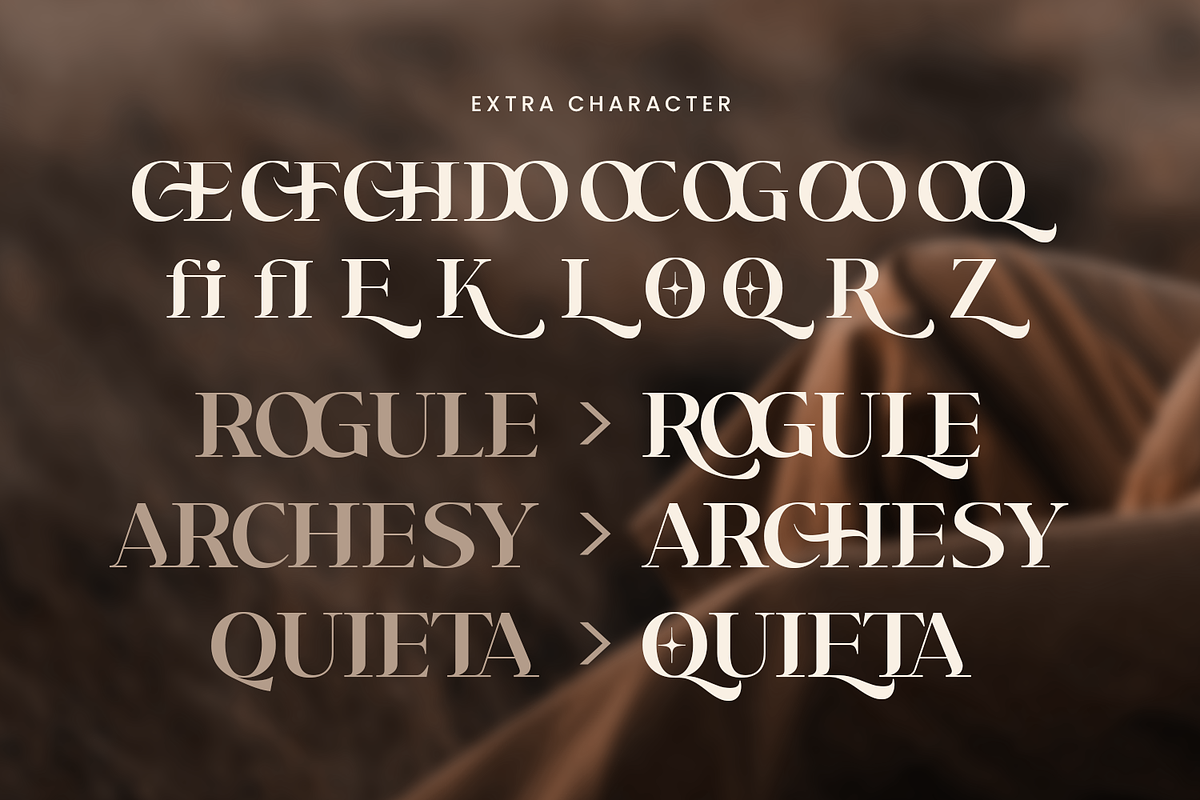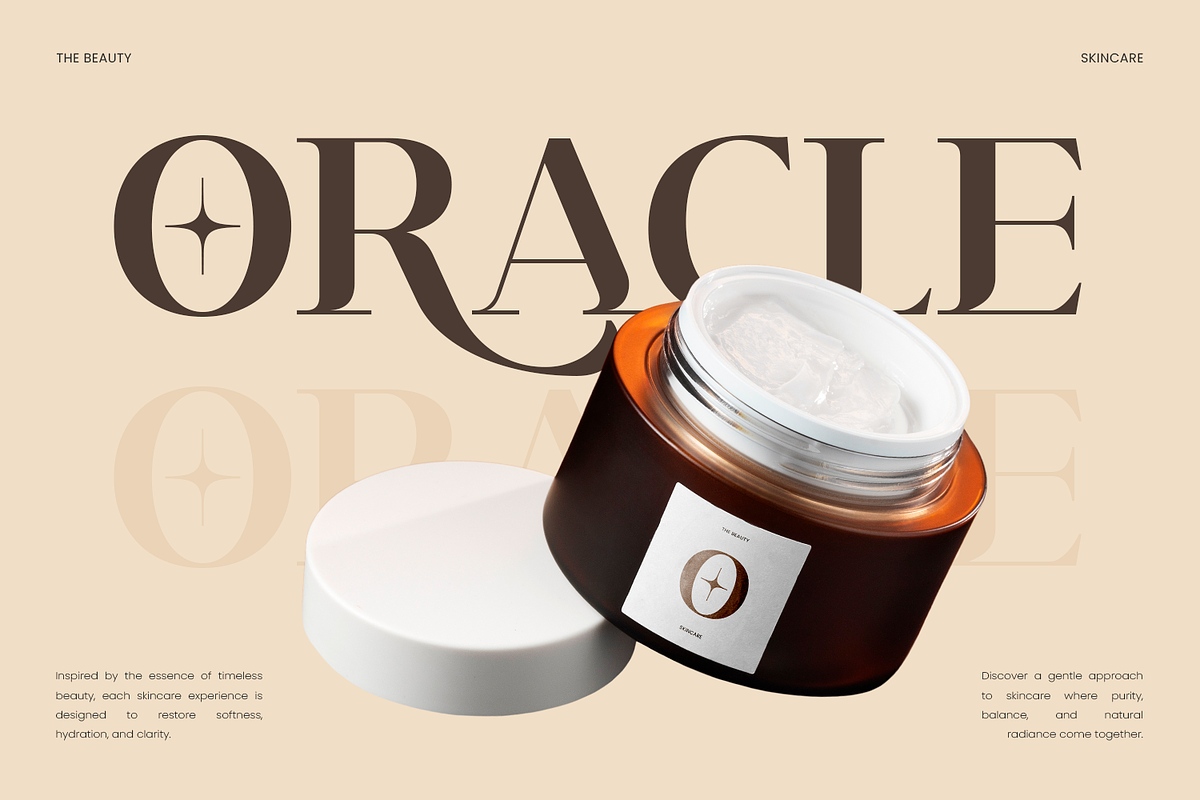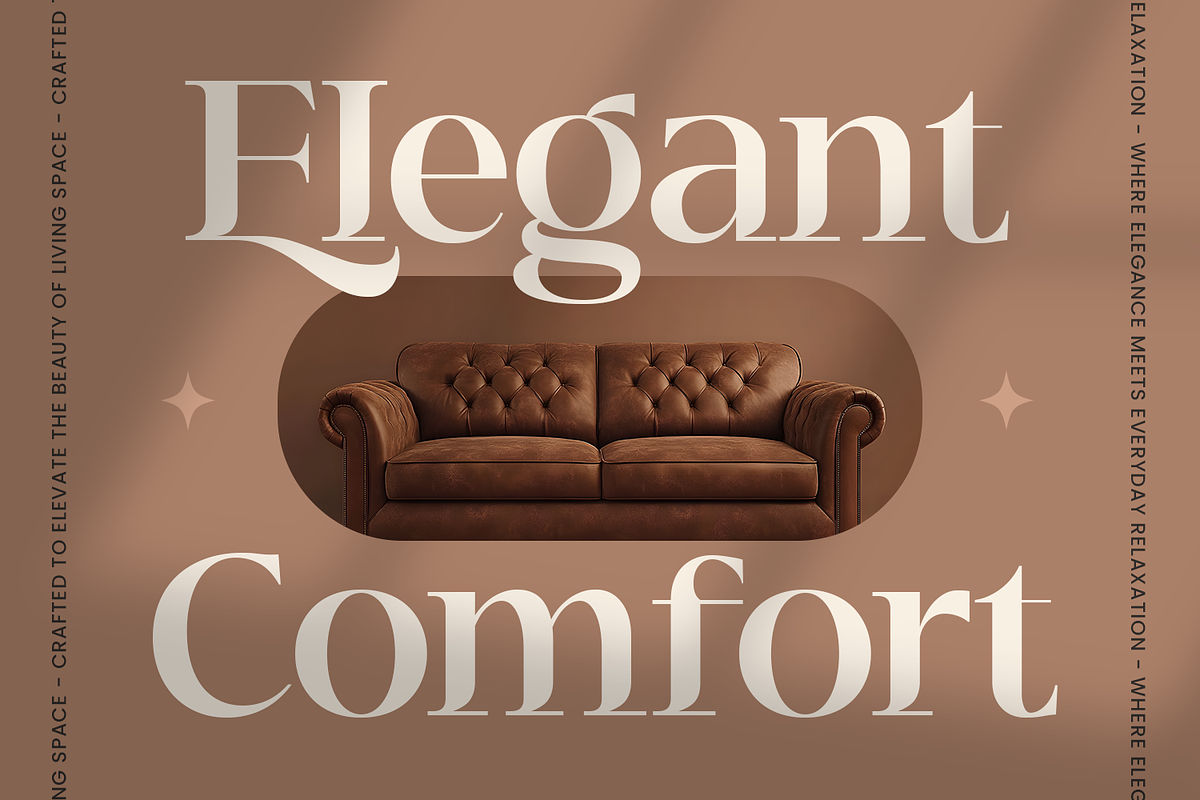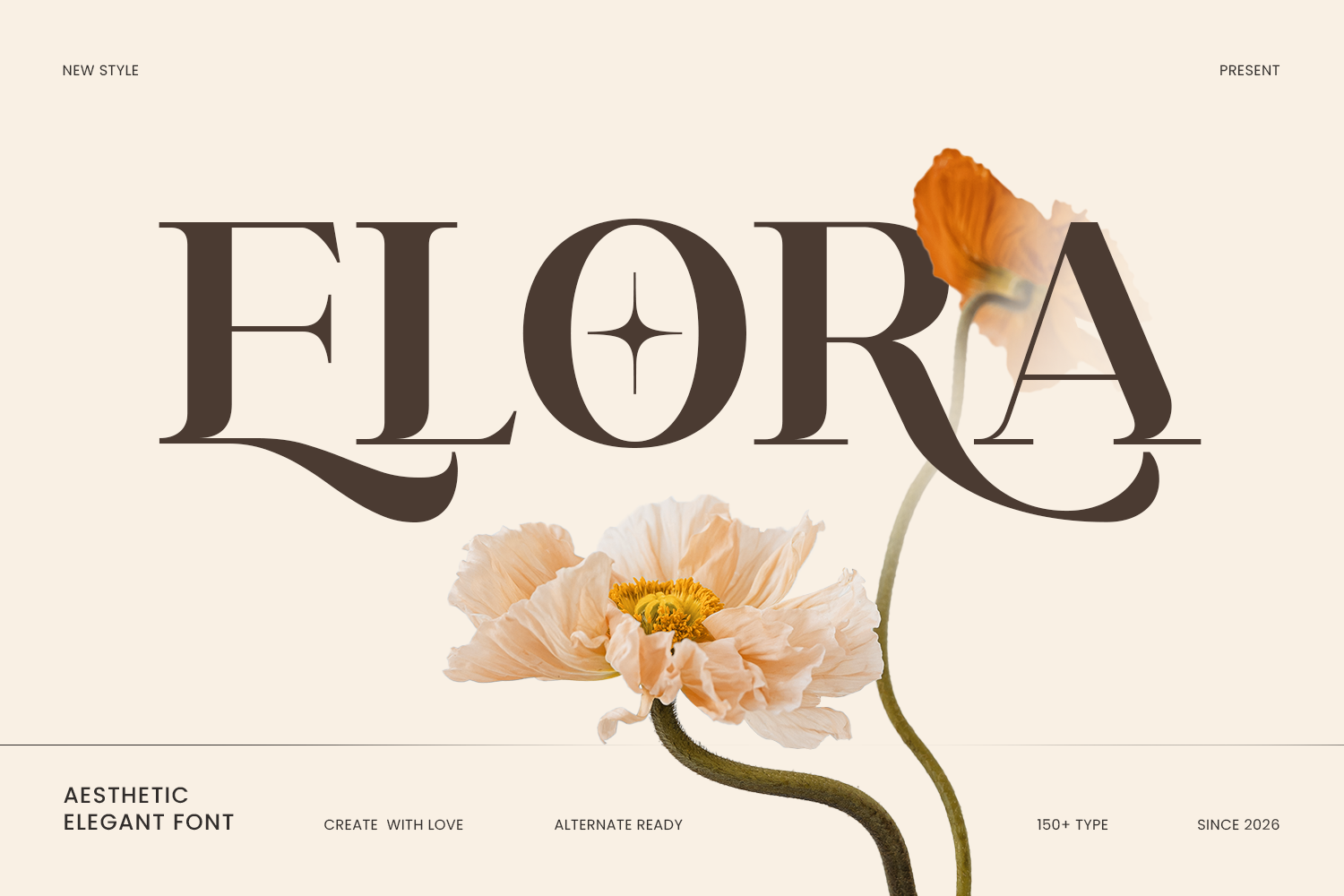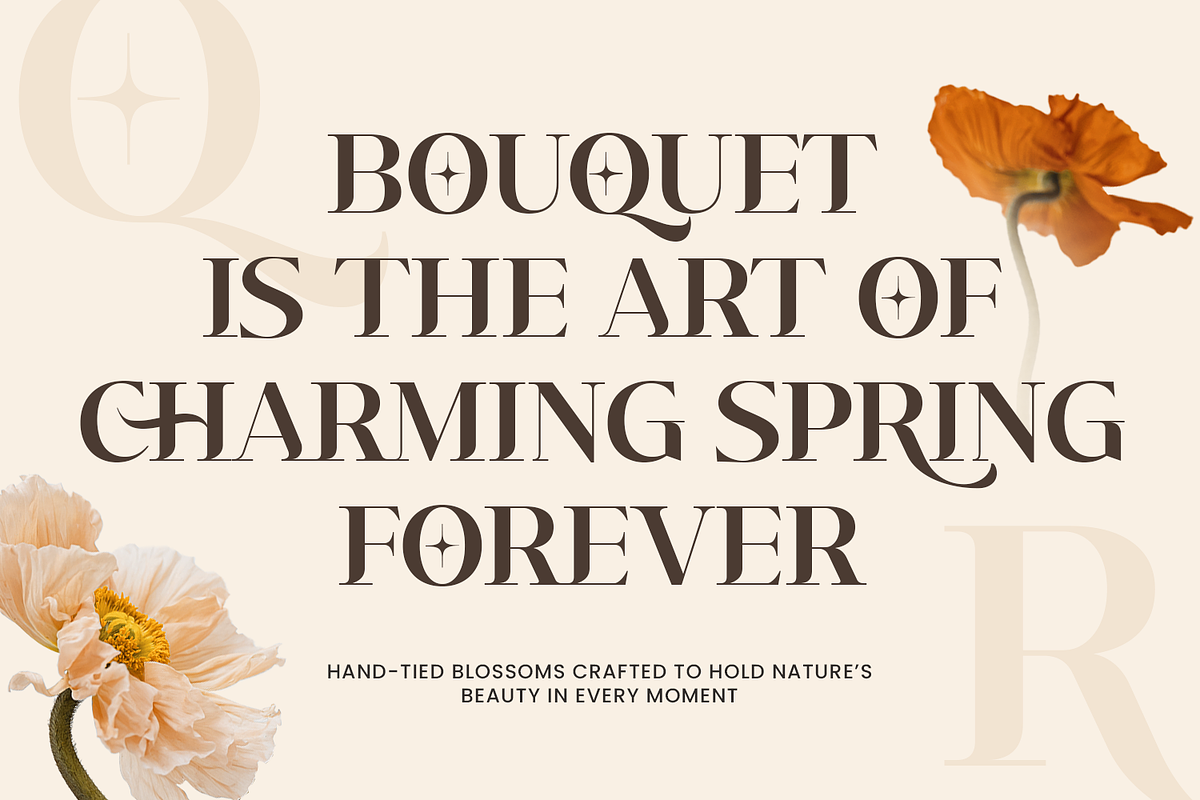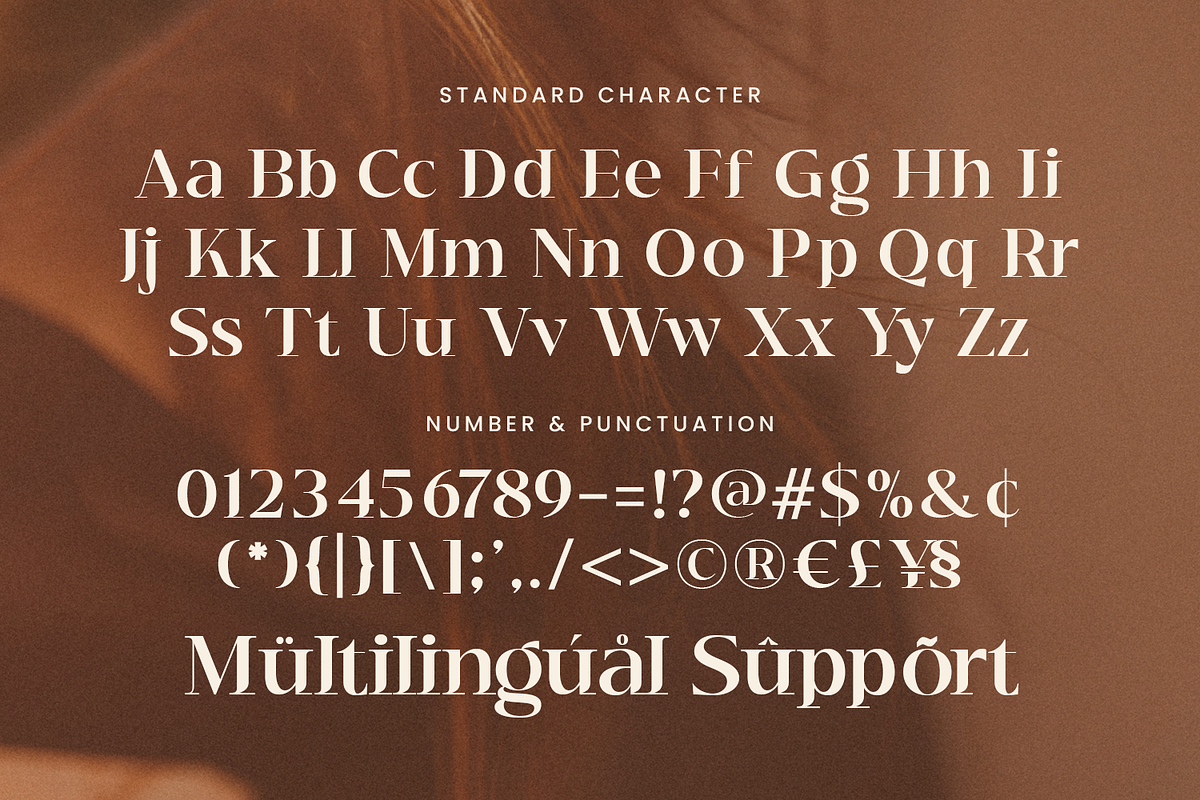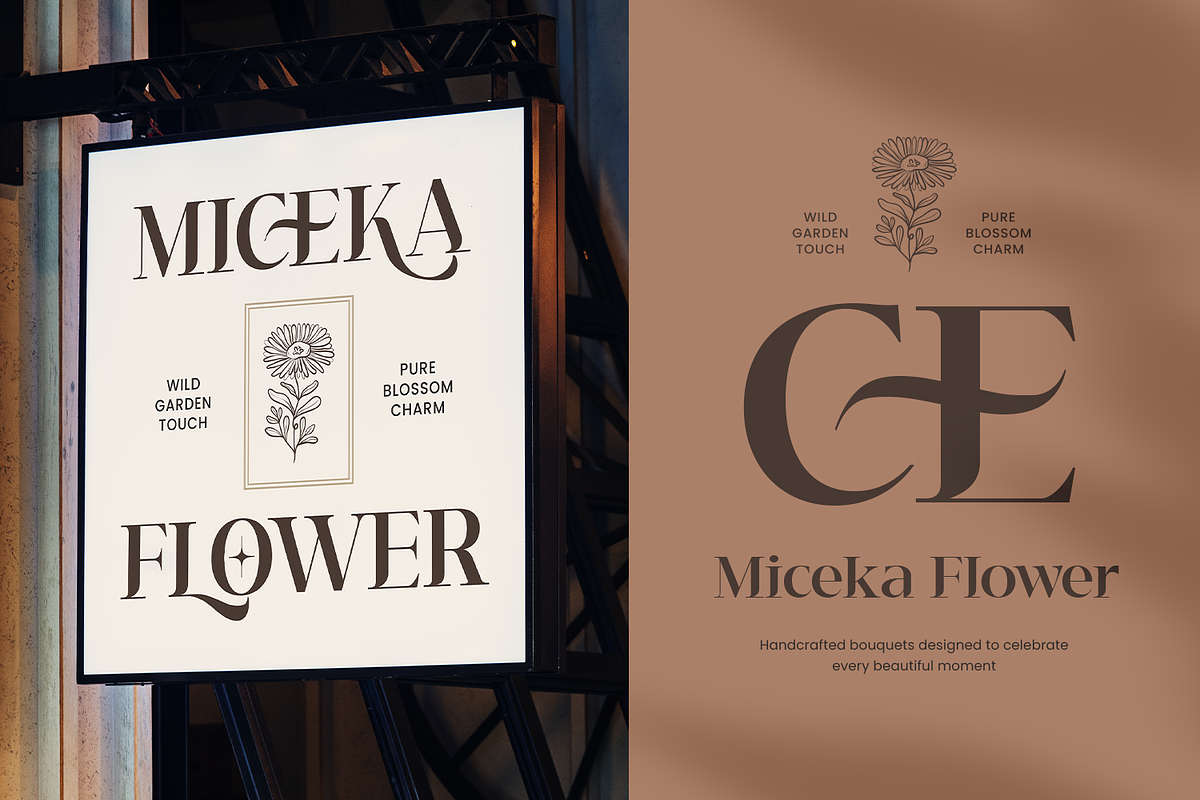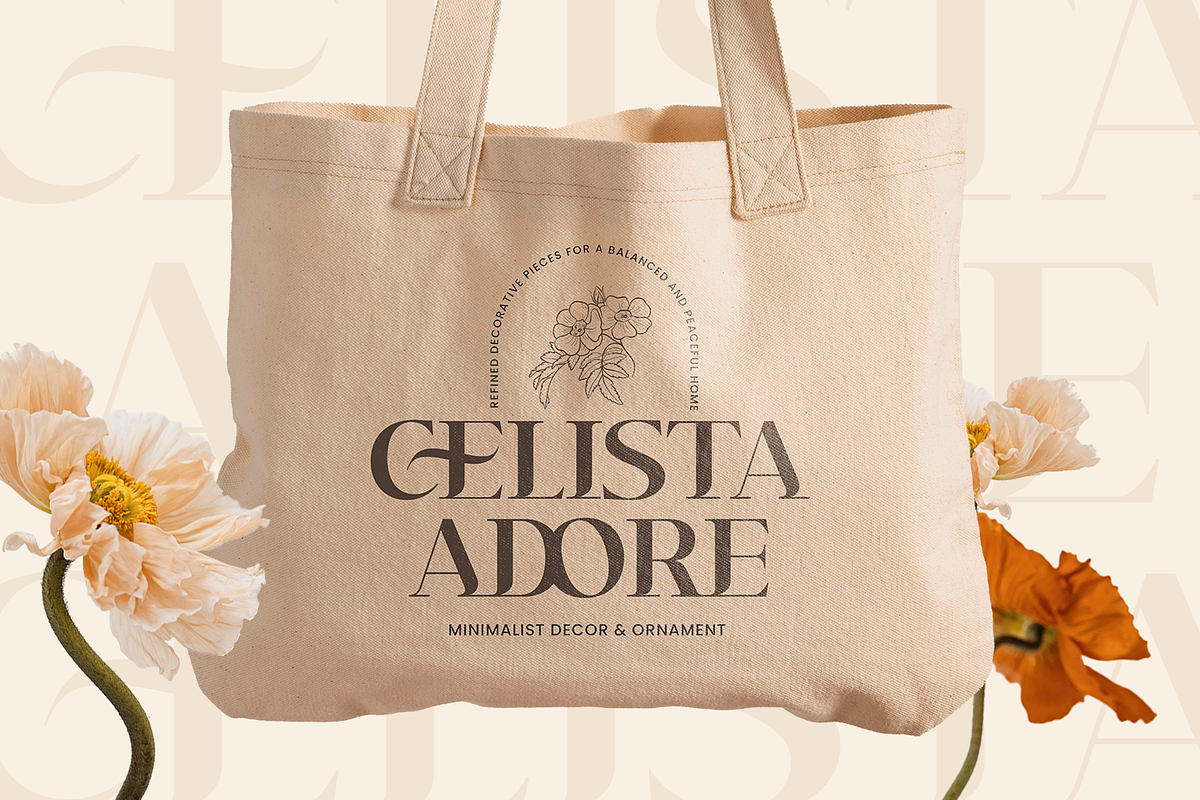
Elora - Luxury Font
Elora is a luxury font that blends elegance, style, and modern sophistication into a beautifully refined font. Designed with graceful curves and balanced letterforms, this font delivers a timeless appearance that enhances any visual composition with a touch of premium aesthetic.
The font features smooth strokes and stylish details that create a harmonious and eye-catching look. Each character is crafted to express elegance and clarity, allowing designs to appear both modern and luxurious while maintaining excellent readability across different layouts.
Elora is perfectly suited for a wide variety of creative projects such as magazine layouts, trendy packaging label designs, premium logos and branding, poster designs, and fashion-related visuals. Its stylish appearance makes it ideal for seasonal themes including summer, spring, autumn, Thanksgiving, and Christmas.
This font also works beautifully for special occasions and craft-based designs such as wedding invitations, birthday cards, Easter projects, Cricut creations, embroidery designs, lettering artwork, and handmade crafts. The elegant character of Elora brings a refined and fashionable atmosphere to every design.